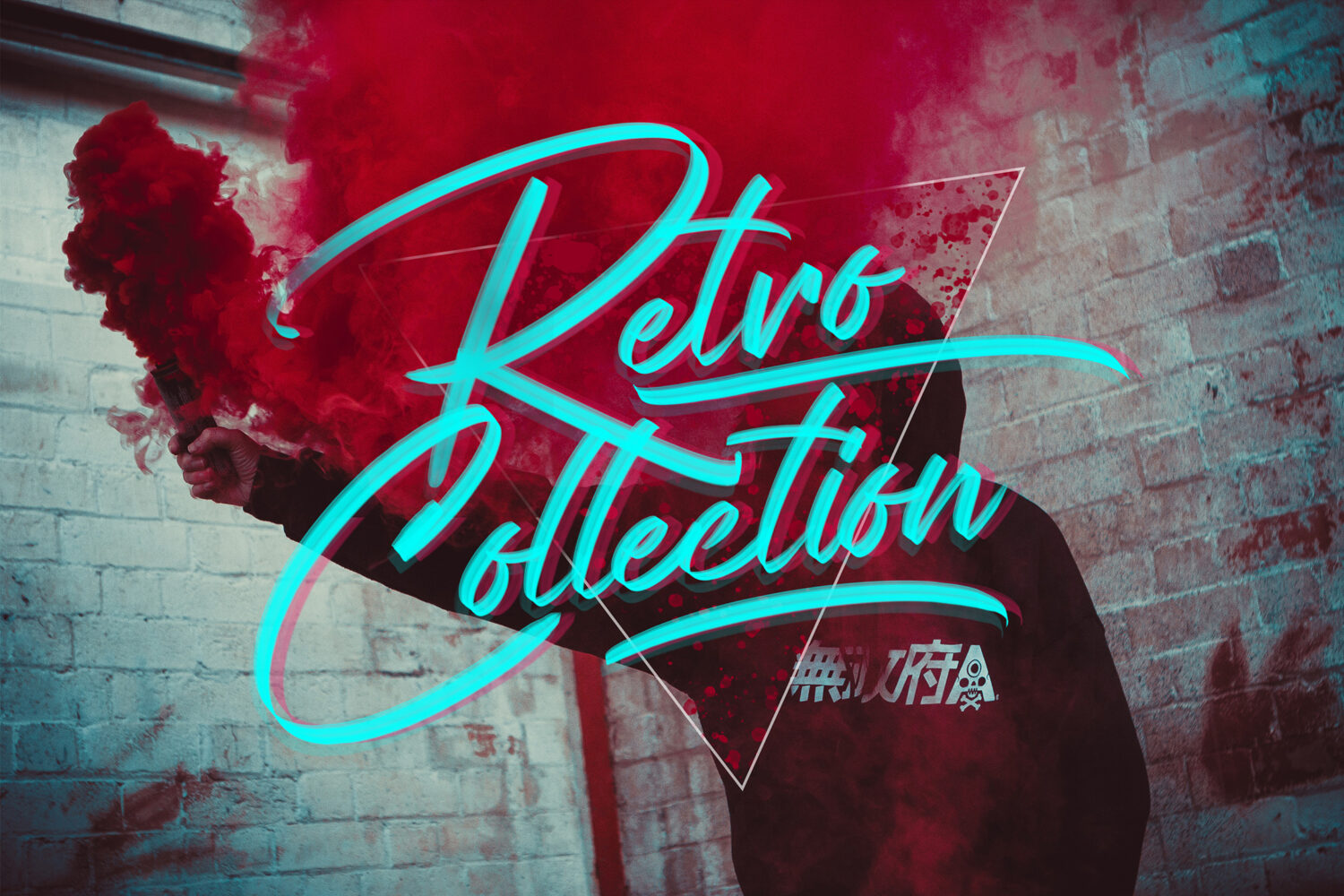
Free Font Chalifor Dalsatic
Free Font Chalifor Dalsatic is a unique, cool, and modern handwritten font. Its hand look style makes it perfect for use in all your design projects be it logos, labels, packaging design, blog headlines, posters, etc. This free typeface was designed by talented Cotbada Studio. If you like it don’t forget to check out the full version.